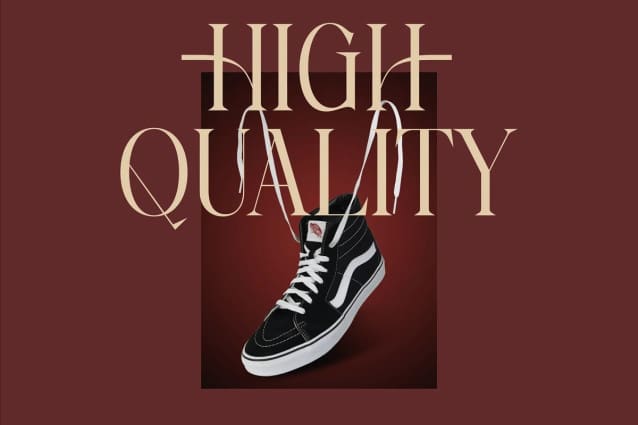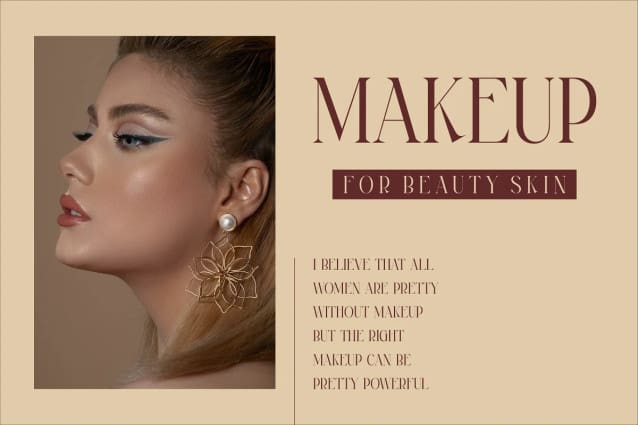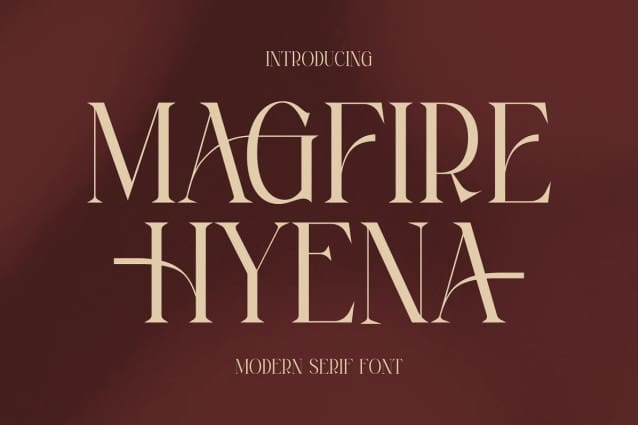
Magfire Hyna Font
Magfire Hyna Font, created by Storytype, a serif modern and classic typeface that has own unique style & modern look. This typeface is perfect for an elegant & luxury logo, book or movie title design, fashion brand, magazine, clothes, lettering, quotes, and so much more.